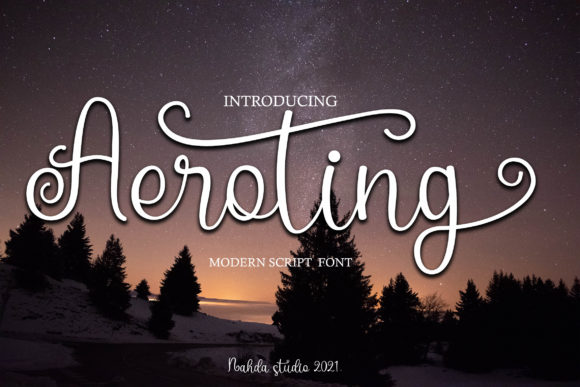
The Elegant Aeroting Font: A Designer’s Delight
I’ll never forget the time I was working on a project for a high-end client, and I was struggling to find the perfect font to match their brand’s sophisticated aesthetic. I had tried countless fonts, but none of them seemed to capture the elegance and class I was looking for. That’s when I stumbled upon Aeroting, a lovely and delicate script font that exuded elegance and class. It was like a breath of fresh air, and I knew immediately that it was the perfect fit for my project.
Aeroting: A Beautiful and Refreshing Font
Aeroting is a beautifully crafted script font that is perfect for designers, crafters, and creative hobbyists who need a elegant and refreshing look to their designs. This font is particularly designed for those who want to add a touch of sophistication and class to their work. With its delicate lines and elegant curves, Aeroting is sure to impress.
An Honest Review of Aeroting
What I Love About Aeroting ✨
- 💫 Elegant and sophisticated design that exudes class and refinement
- 🎨 Beautifully crafted with attention to detail
- 🤝 Works well for a variety of design projects, from branding to wedding invitations
- ⚠️ Limited character set, which may not be suitable for projects that require a wide range of characters
- 🤔 May not work well with bold or bright colors, as it can be overpowering
The Backstory of Aeroting: Designer Inspiration
Aeroting was designed by a team of talented designers who wanted to create a font that would capture the essence of elegance and class. The designers were inspired by traditional calligraphy and hand-lettering, and they spent countless hours perfecting the font to ensure that it was both beautiful and functional.
Q: What is Aeroting font?
A: Aeroting is a lovely and delicate script font that exudes elegance and class.
Q: What is Aeroting best used for?
A: Aeroting is best used for designs that require a elegant and refined look, such as branding, wedding invitations, and luxury packaging.
Q: Is Aeroting easy to read?
A: Yes, Aeroting is highly legible, even at small font sizes, making it perfect for designs that require a lot of text.